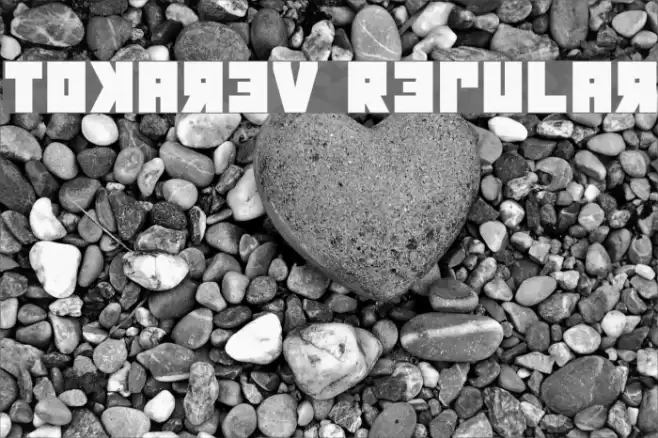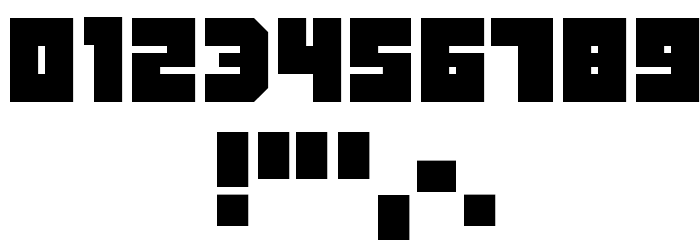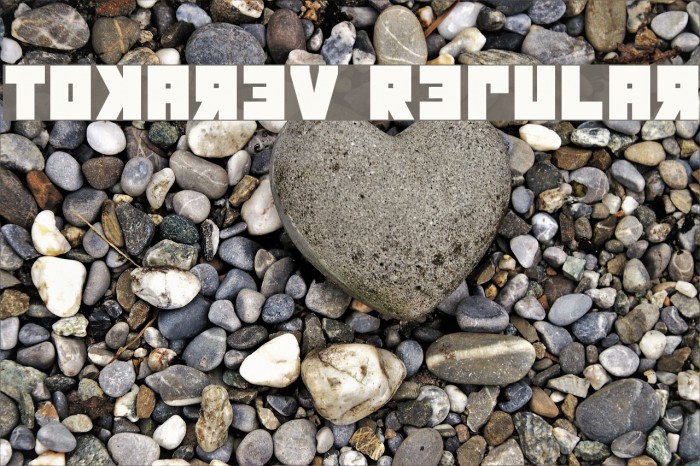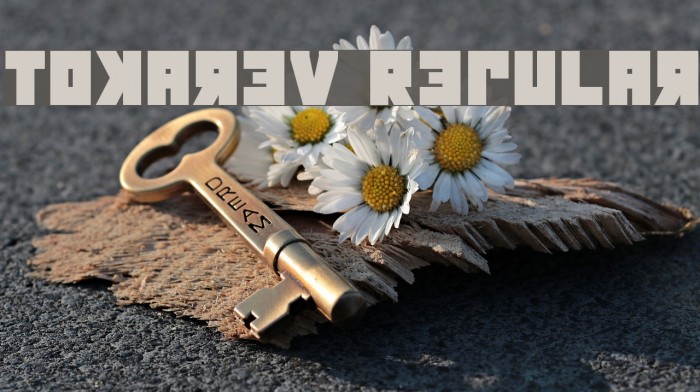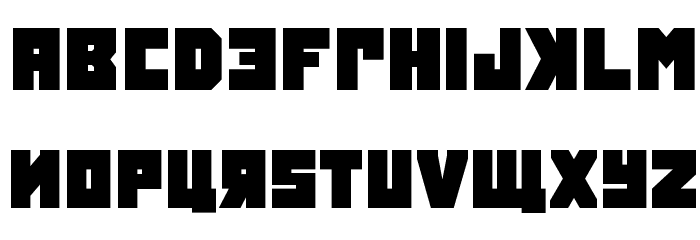
Tokarev Regular Font
Tokarev Regular Description
This font features a bold, geometric design with strong, angular lines and a blocky appearance. The characters are uniformly thick, creating a heavy and impactful look. The uppercase and lowercase letters maintain a consistent style, with some unique elements such as the star in the lowercase 'i'. The numbers and special characters follow the same bold and structured design, making the font highly cohesive. Its distinct style is reminiscent of industrial or military aesthetics, making it suitable for attention-grabbing designs.
A bold, geometric font with a blocky, industrial style from Uncategorized fonts.
- Proposed Projects: Ideal for posters, logos, video game graphics, and any project requiring a strong, impactful visual presence.
- Overall Style: Modern, Industrial